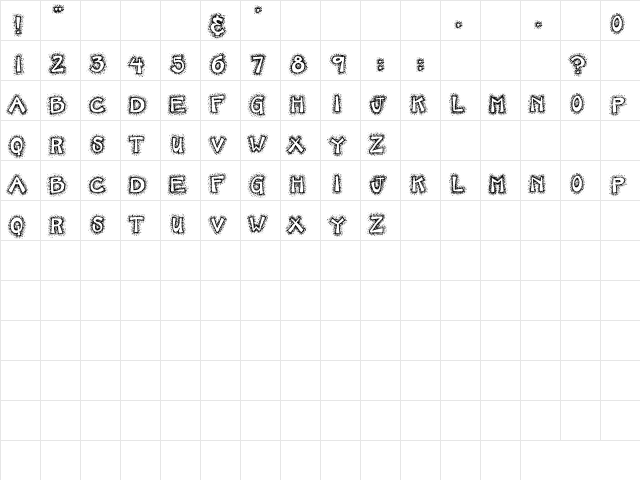
SBC Sandy Beach Regular
Design Context for SBC Sandy Beach Typeface
SBC Sandy Beach is a composed and adaptable typeface that performs quietly and consistently across a wide range of design contexts.